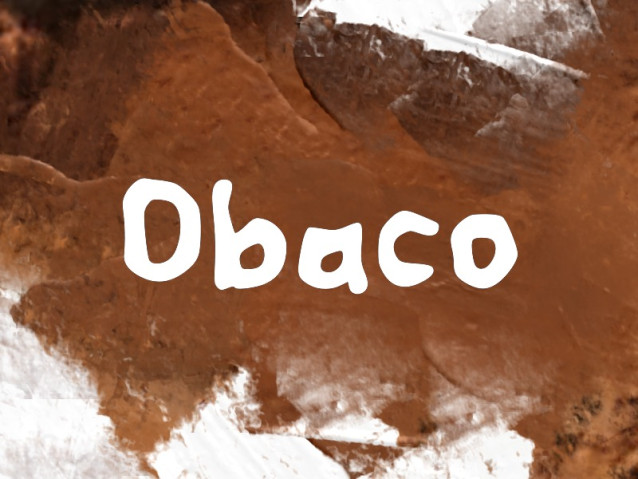
Obaco Font
Obaco Font is a simple and modern display font suitable for quotes, logos, headings, titles, and many more. Use it on any of your creative projects, and your designs will become outstanding!